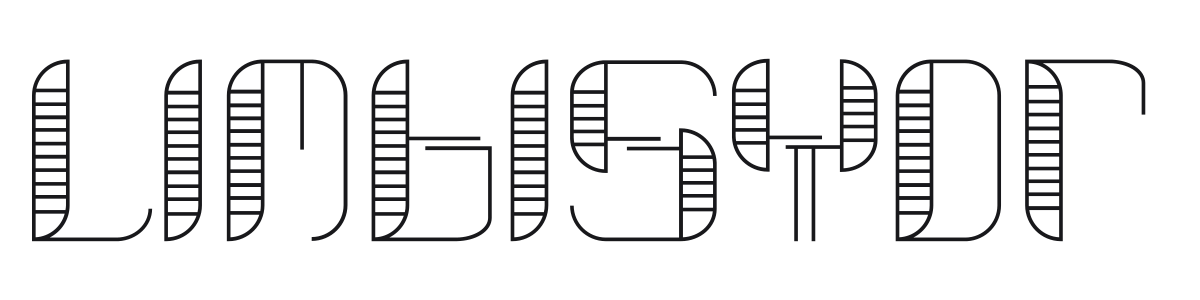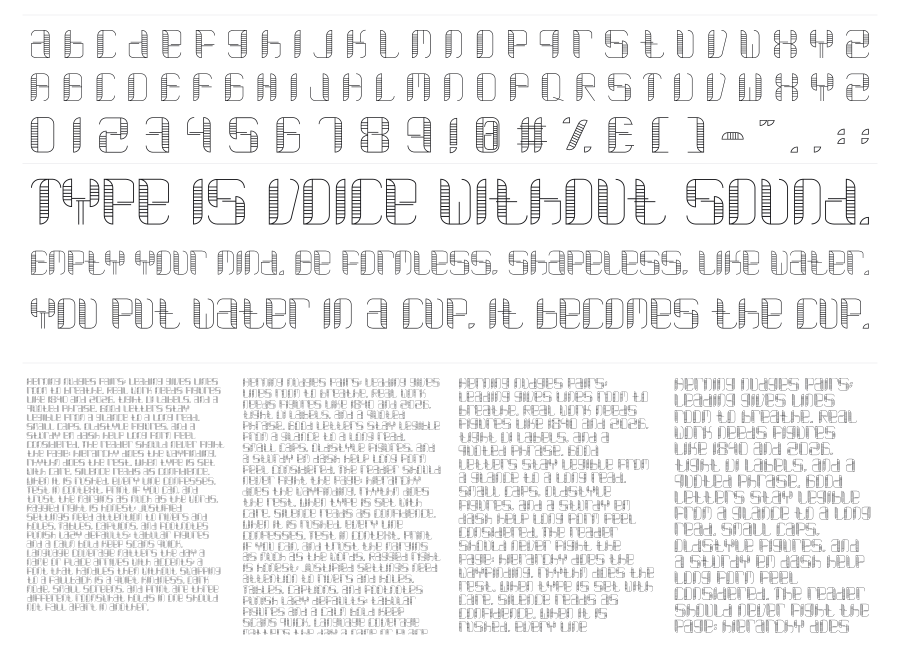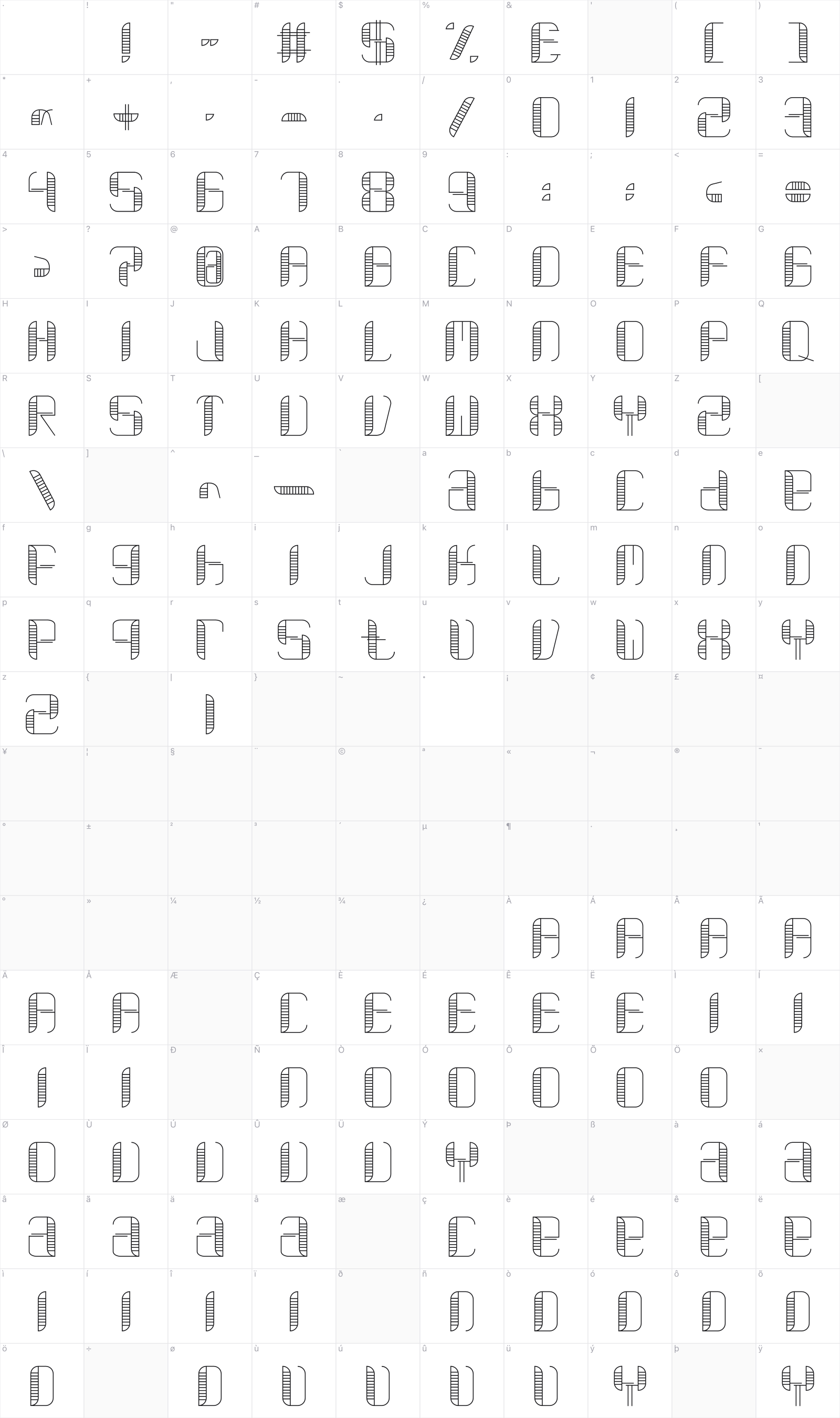
Limbisyor
Limbisyor is a geometric rounded outline font filled with horizontal stripe patterns that give each character the look of a glowing panel or vintage LED display. The wide, blocky proportions and consistent monoweight stroke create a bold, grid-like texture that reads instantly as retro-futuristic. Strong at large sizes for posters, gaming titles, and any project that needs a sci-fi or arcade-era energy.